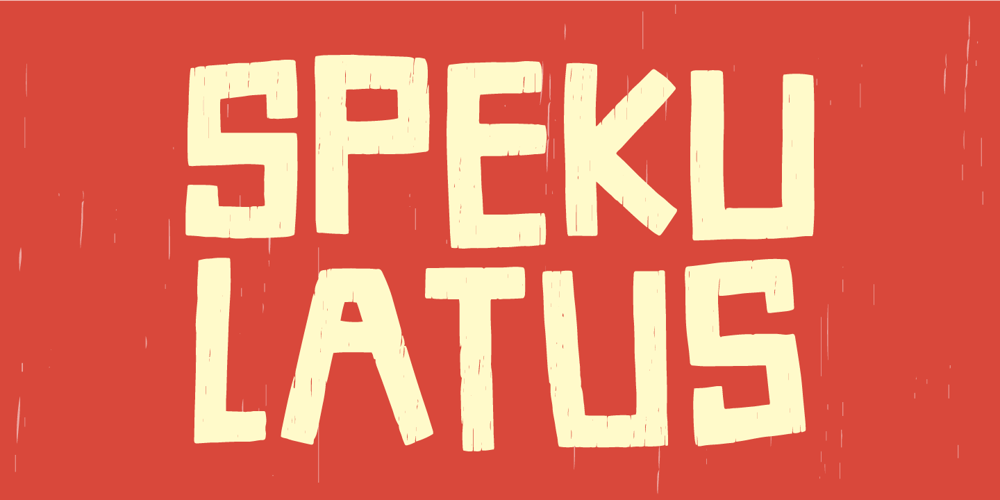
Spekulatus
Spekulatus font
Spekulatus Font Family was designed by Jakob Fischer and published by Bogstav. Spekulatus contains 2 styles and family package options. Spekulatus is a made up name, and that was what I needed for a font like this.I am not sure which category it fits in: grunge, square, handmade, rough or maybe even graffiti?Well, let’s just say that it fits in all 5 – or perhaps even more?All letters are handdrawn, and messed up a bit with a thin fine white liner, leaving a gentle grungy and worn effect. I’ve added 5 different versions of each letter, which is quite nice – not having the same letters repeating all the time!